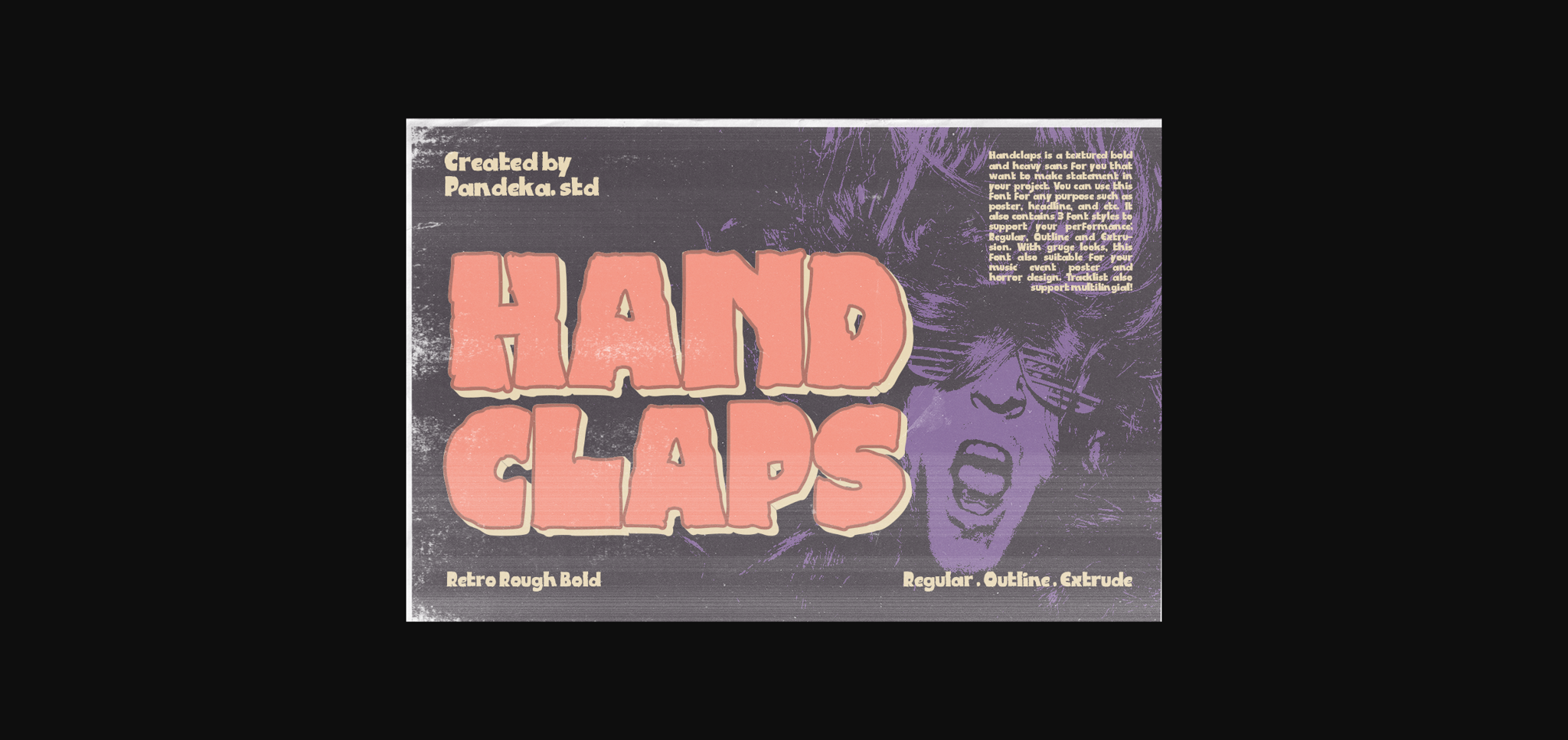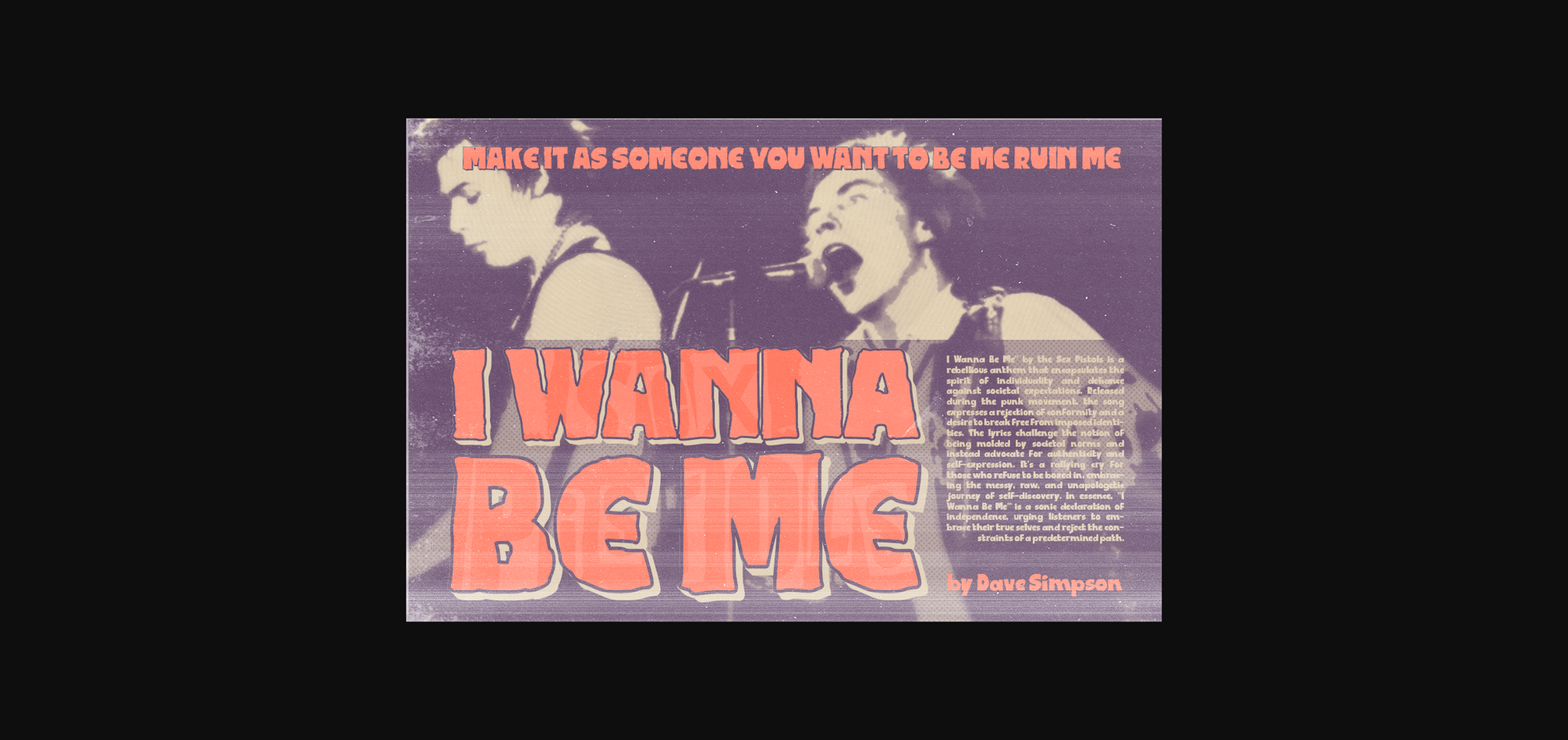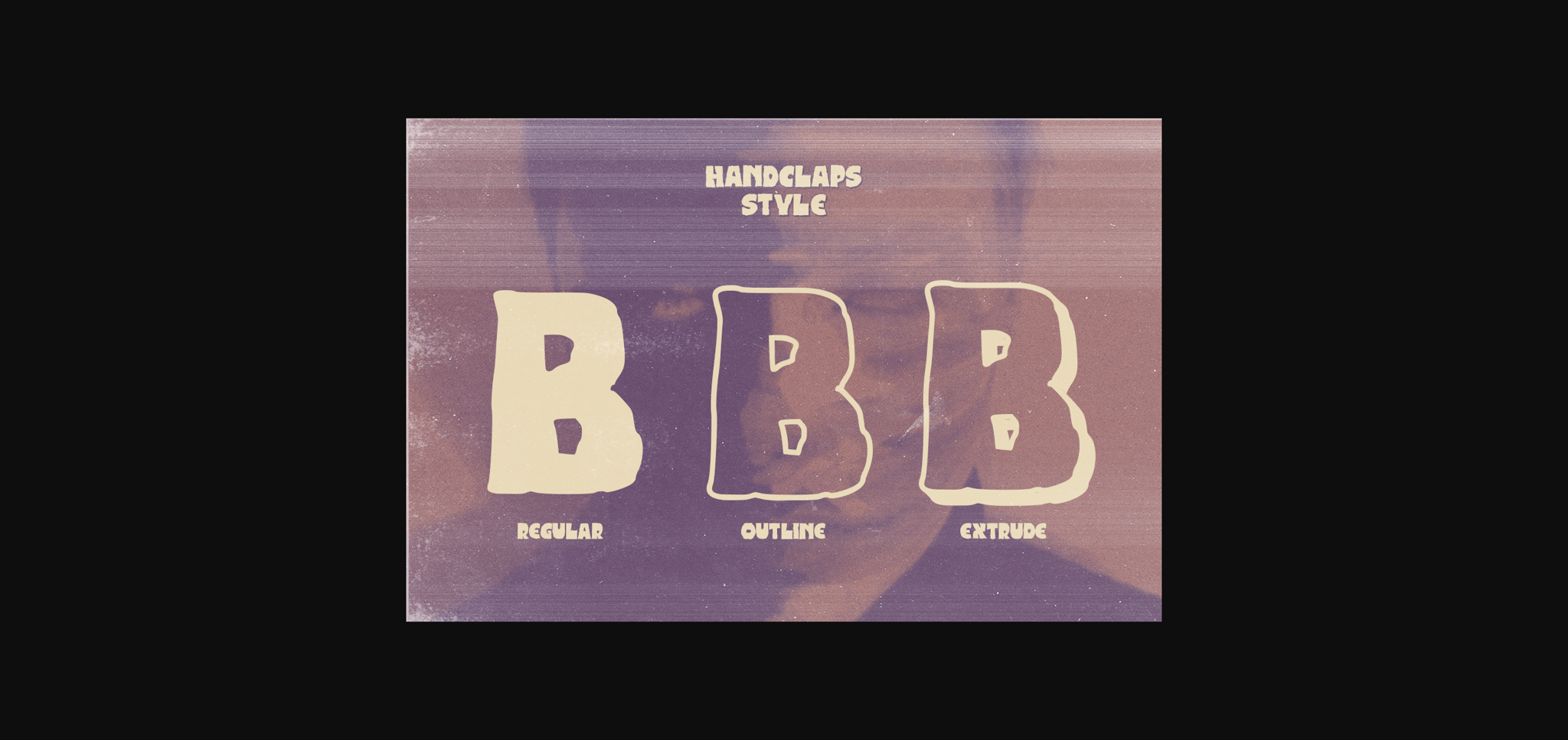
About Handclaps Font
Handclaps is a textured bold and heavy sans for you who want to make a statement in your project. You can use this font for any purpose such as poster, headline, etc. With gritty and rough looks, this font is also suitable for your music and album design.